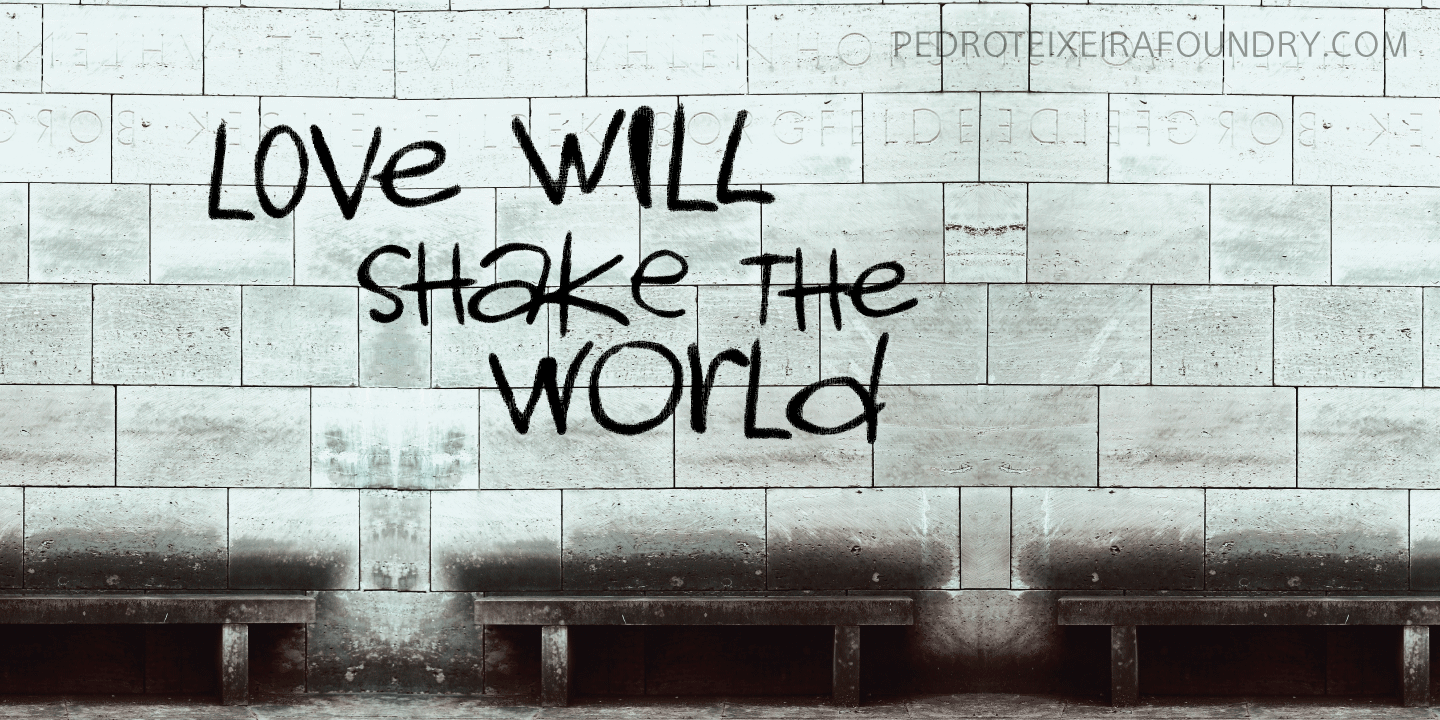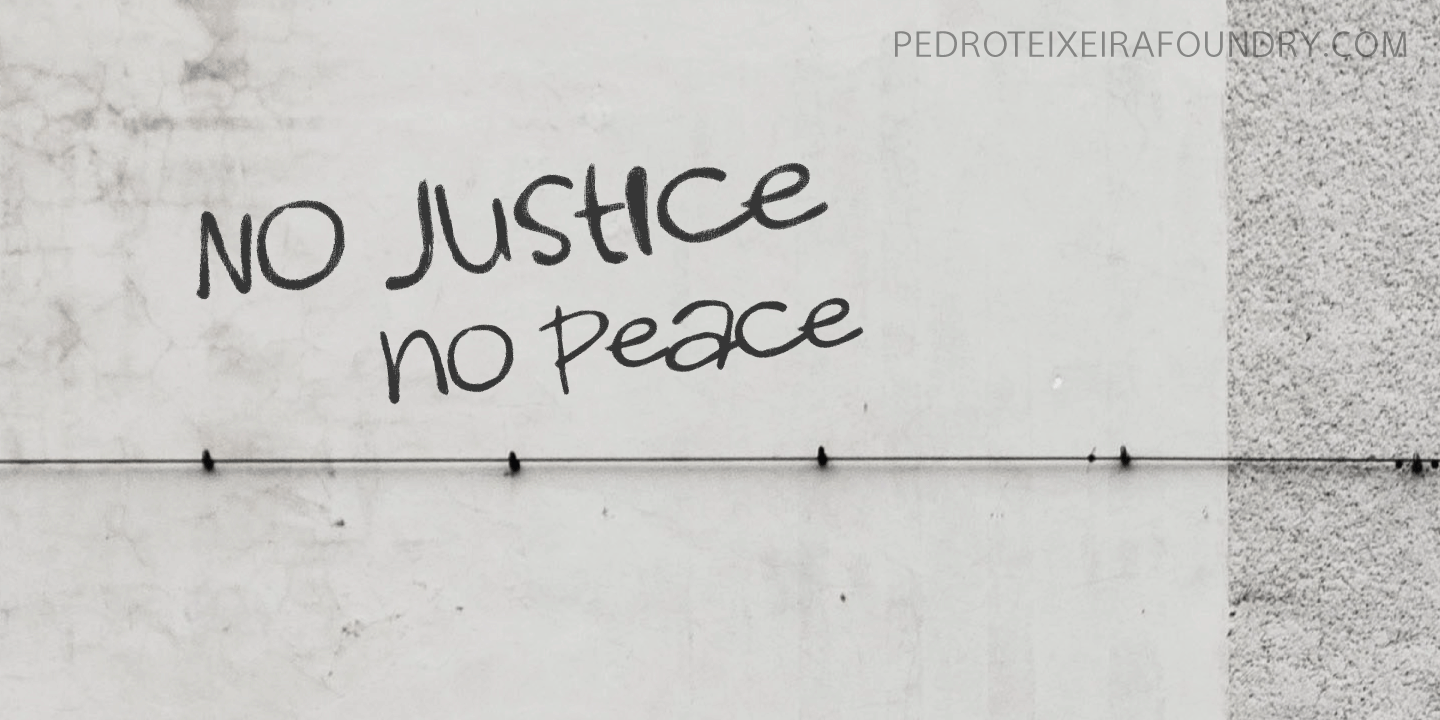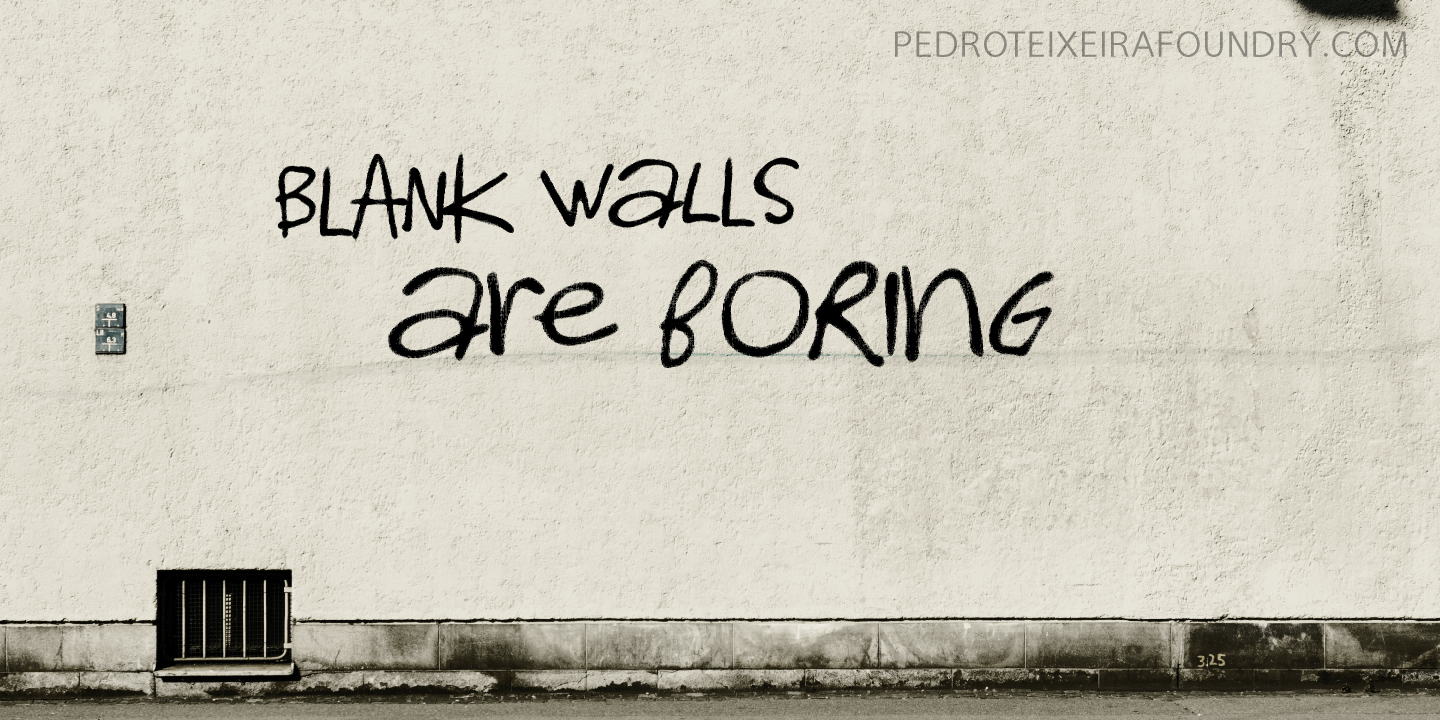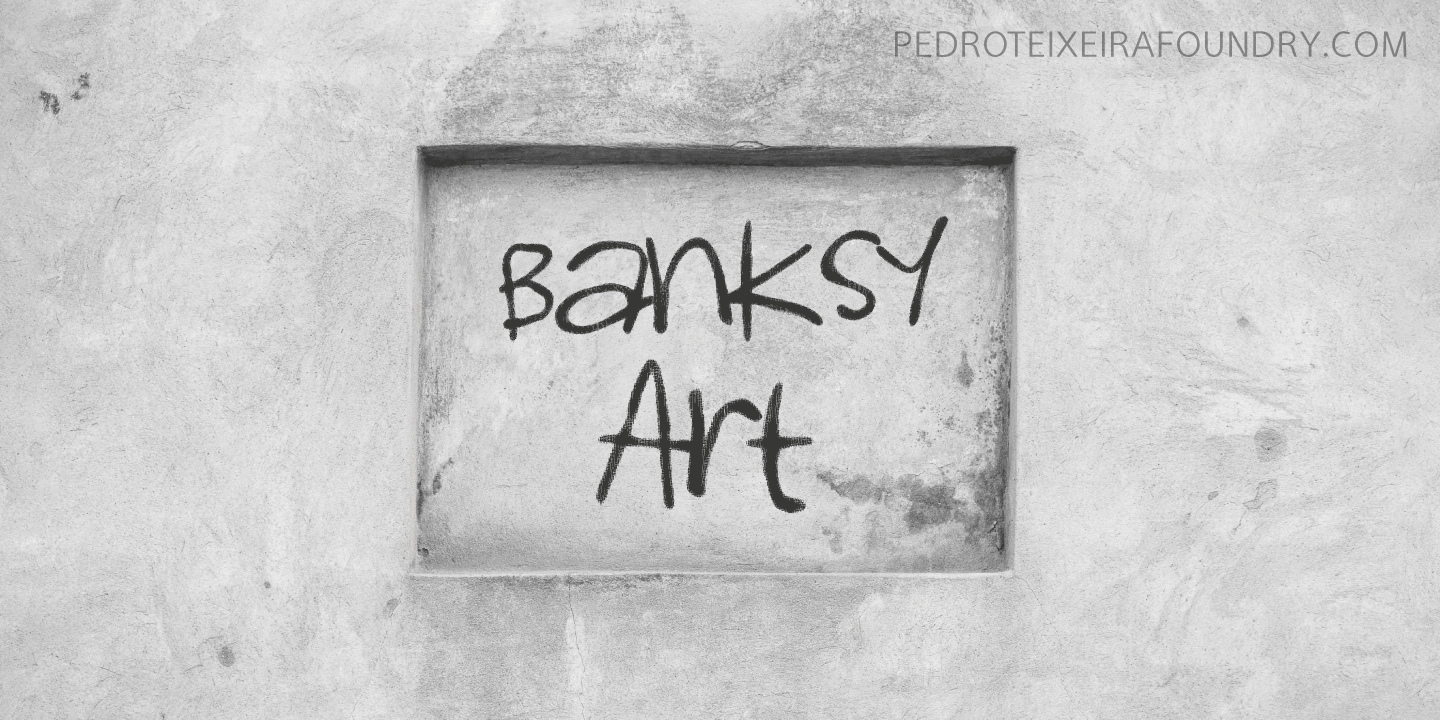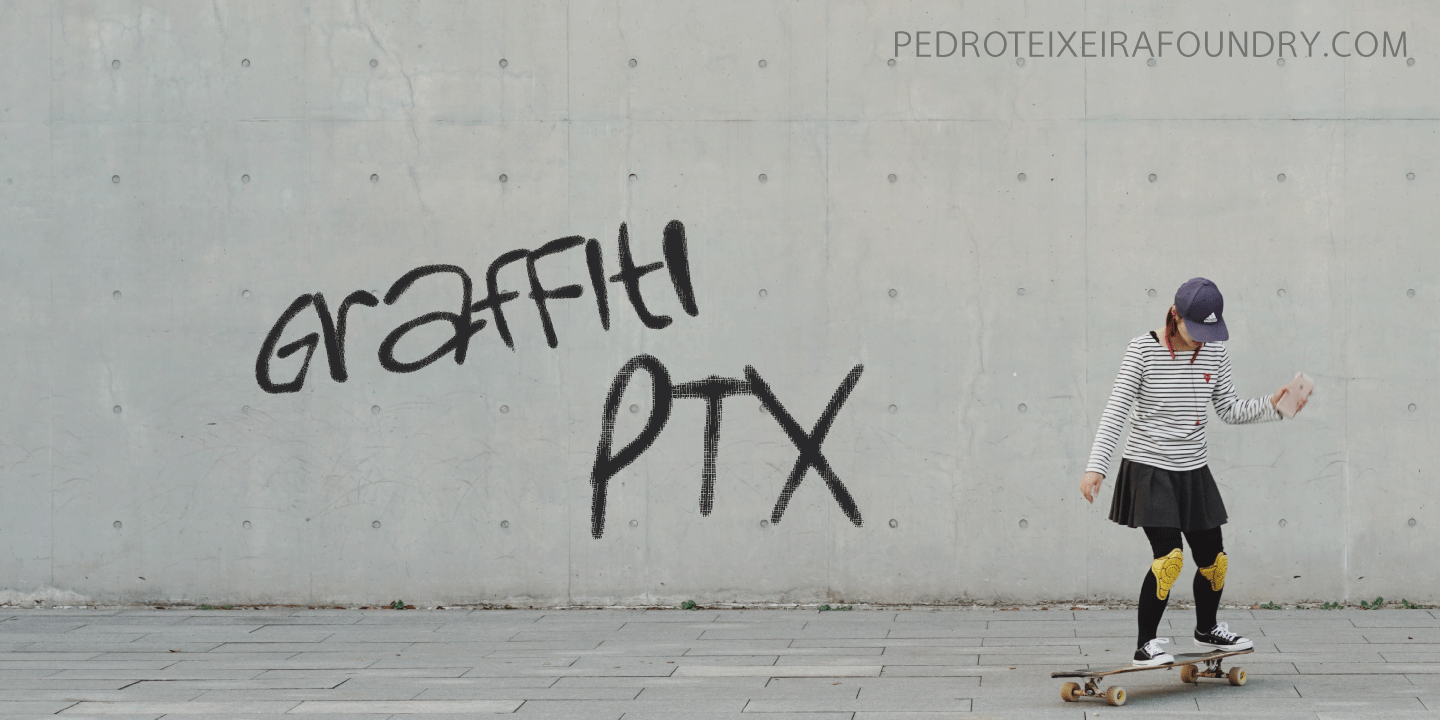
About Graffiti PTx
This font was inspired on graffiti texts, sentences of street walls. The intention it\’s to give a style of old school words spread on some walls around the world. This can be cool for a design of a poster, headlines and so on.